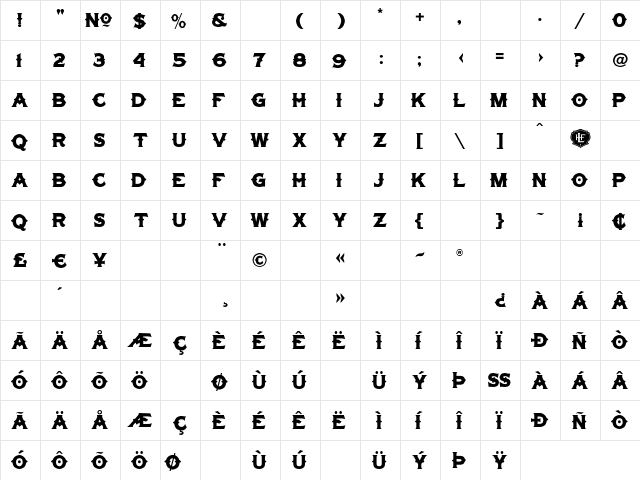
Tonic Lhf Nerve Regular
Design Context for Tonic Lhf Nerve Typeface
Tonic Lhf Nerve is a composed and adaptable typeface that performs quietly and consistently across a wide range of design contexts.